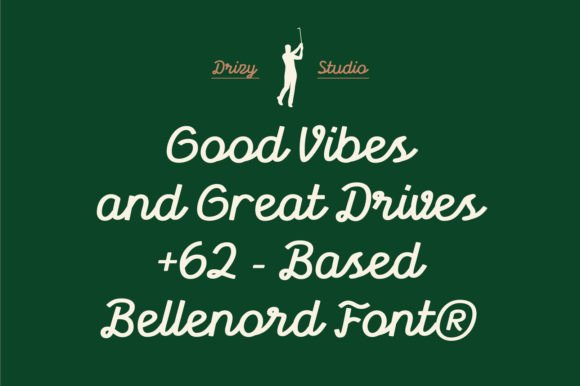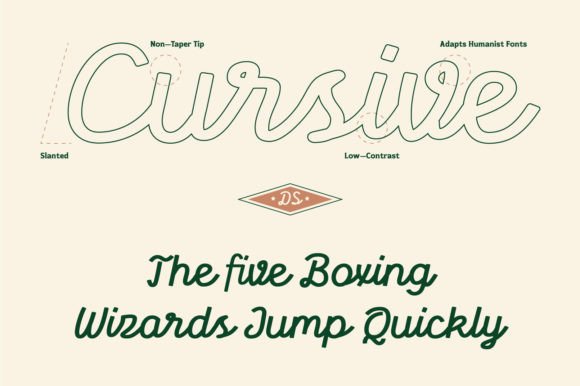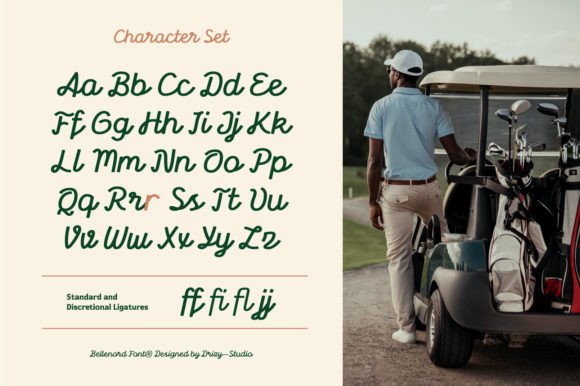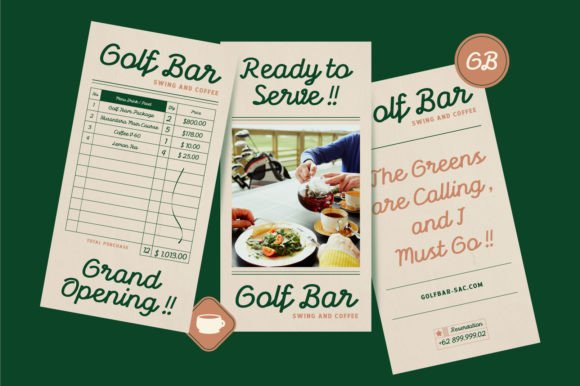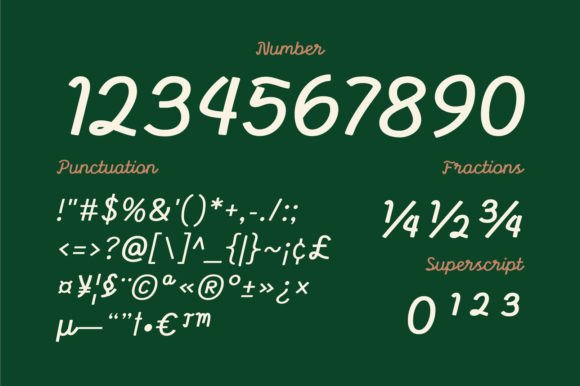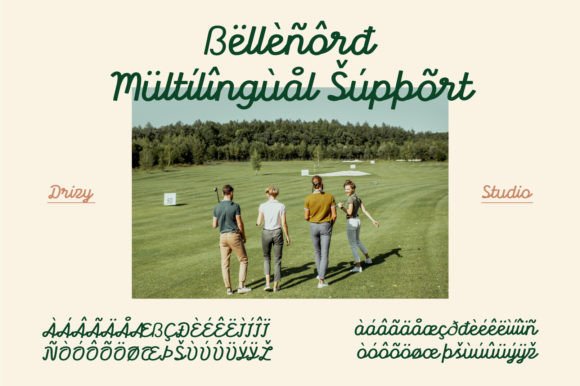
Bellenord Font: Elevate Your Designs with Classic Golf Elegance
Are you looking for a font that exudes sophistication, tradition, and a touch of vintage charm? Look no further than Bellenord, a stunning monoline script display font inspired by the classic taste of golf. In this article, we’ll dive into the world of Bellenord, exploring its design, features, and uses, as well as provide tips for designers and crafters on how to make the most of this elegant font.
The Inspiration Behind Bellenord
Bellenord is a font that embodies the essence of golf’s elegant sport. With its classic Golf-Elegant Sport inspiration, this font combines the sophistication and tradition of the sport with a refined aesthetic. The result is a font that is both timeless and versatile, perfect for a wide range of design projects.
Design and Features
Bellenord is a monoline script display font, characterized by its flowing, connected letters and elegant curves. The font features a refined, sophisticated aesthetic, with a subtle nod to vintage golf typography. Its classic taste makes it an ideal choice for upscale golf event invitations, club signage, merchandise, and more.
Some of the key features of Bellenord include:
- Elegant, flowing script with connected letters
- Refined, sophisticated aesthetic with a vintage touch
- Monoline design with subtle variations in line width
- Perfect for display use, headlines, and titles
Uses for Bellenord
Bellenord is a versatile font that can be used in a variety of design projects, including:
- Golf event invitations and programs
- Club signage and branding
- Golf course marketing materials and brochures
- Merchandise and apparel
Any project that requires a touch of elegance, sophistication, and classic taste is a perfect fit for Bellenord.
To make the most of Bellenord, here are a few tips for designers and crafters:
- Use Bellenord as a display font to add a touch of elegance to your design
- Pair Bellenord with a simple, clean font for body text to create contrast and visual interest
- Experiment with different colors and textures to add depth and dimension to your design
- Consider using Bellenord in combination with golf-inspired graphics and imagery to create a cohesive look
Bellenord is a stunning monoline script display font that embodies the classic taste and elegance of golf. With its refined aesthetic and versatile design, it’s perfect for a wide range of design projects, from golf event invitations to merchandise and more. Whether you’re a designer or crafter, Bellenord is a font that’s sure to elevate your designs and add a touch of vintage charm.